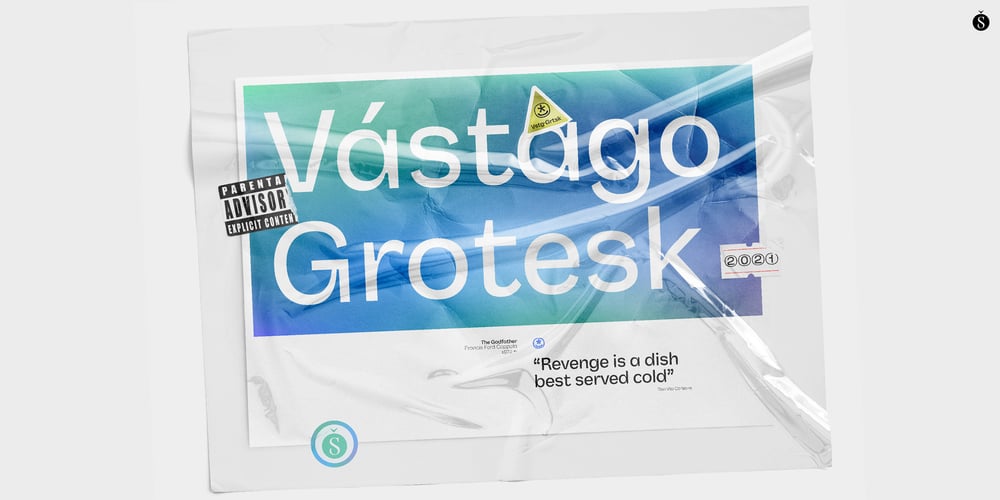
Vastago Grotesk Font Family was designed by Alejandro Paul and published by Sudtipos. Vastago Grotesk contains 10 styles and family package options. We are pleased to announce the launch of Vástago Grotesk, a nine-weight sans serif font family, inspired by the traditional grotesque designs of the 20th century. The particular ink traps, result of the G drawing, create it a visual universe that is replicated throughout the system, generating personality and a functional distinctive in multiple contexts.Vástago Grotesk was born out of an interest in exploring the possibilities of Sans Serif font design, a process that is complemented by the advice of excellent typographers throughout the world thanks to the Type Crit Crew initiative.The design was carefully constructed, achieving functionality in different sizes, ranging from a subtle Thin to a Heavy weight that projects grandeur and character. Vástago Grotesk is a challenge come true. We hope you enjoy it.